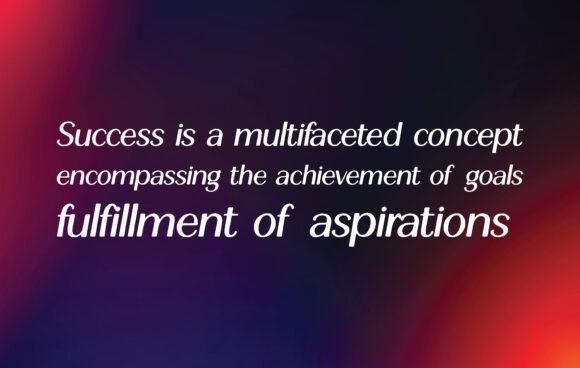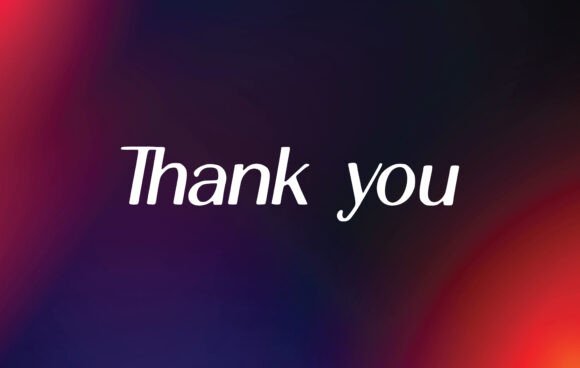
The Perfect Blend: Discovering Your New Favorite Font
Have you ever been in the middle of a creative project, staring at a blank screen, and suddenly, the perfect font pops into your mind? It’s a feeling of excitement and relief, knowing that you’ve found the perfect tool to bring your vision to life. For designers, this moment is what makes all the hard work worth it. And, for those of you who are still searching, we’re excited to introduce you to the Centipede Font – a game-changer in the world of typography.
This versatile font is designed to be a go-to favorite in your collection, offering the perfect blend of style and readability. Whether you’re designing titles, body text, or anything in between, the Centipede Font is sure to elevate your creative project. Its ease of use and adaptability make it a valuable asset for designers, and we’re excited to share it with you.
Centipede Font Key Features
- Unique Characteristics: Centipede Font features a distinctive, curved design with a mix of rounded and geometric shapes, creating a unique visual identity that sets it apart from other fonts.
- Font Weight and Style: The font includes multiple weights, from Light to Bold, as well as an Italic version, providing flexibility for designers to choose the perfect style for their project.
Centipede Font Review
At first glance, the Centipede Font seems like a quirky and unique addition to any design project. Here are some aspects that caught my attention:
- ✨ Its organic, handwritten feel makes it perfect for creating a personal and emotive connection with your audience.
- ✨ The varied letterforms and flourishes add a touch of whimsy and playfulness to your designs.
- ✨ The font’s inconsistent weight and texture give it a sense of movement and energy.
- ⚠️ The font’s uneven letter spacing and kerning can make it challenging to read in certain contexts.
- ⚠️ The inconsistent weight and texture can also make it difficult to achieve a cohesive look across different design elements.
- ⚠️ Some characters, such as the lowercase ‘a’ and ‘e’, may require manual adjustments to ensure proper legibility.
Overall, I think the Centipede Font is a great choice for designers who want to add a touch of personality and creativity to their work. While it may not be suitable for every project, it’s definitely worth considering for those who want to push the boundaries of typography and design.
Use the Centipede Font to add a playful and whimsical touch to your designs. It’s perfect for children’s books, party invitations, and other creative projects. Experiment with different font sizes and colors to create a unique look.
The Centipede Font is commonly used in creative projects, such as:
- Children’s books and educational materials
- Web design and branding
- Graphic design and print materials